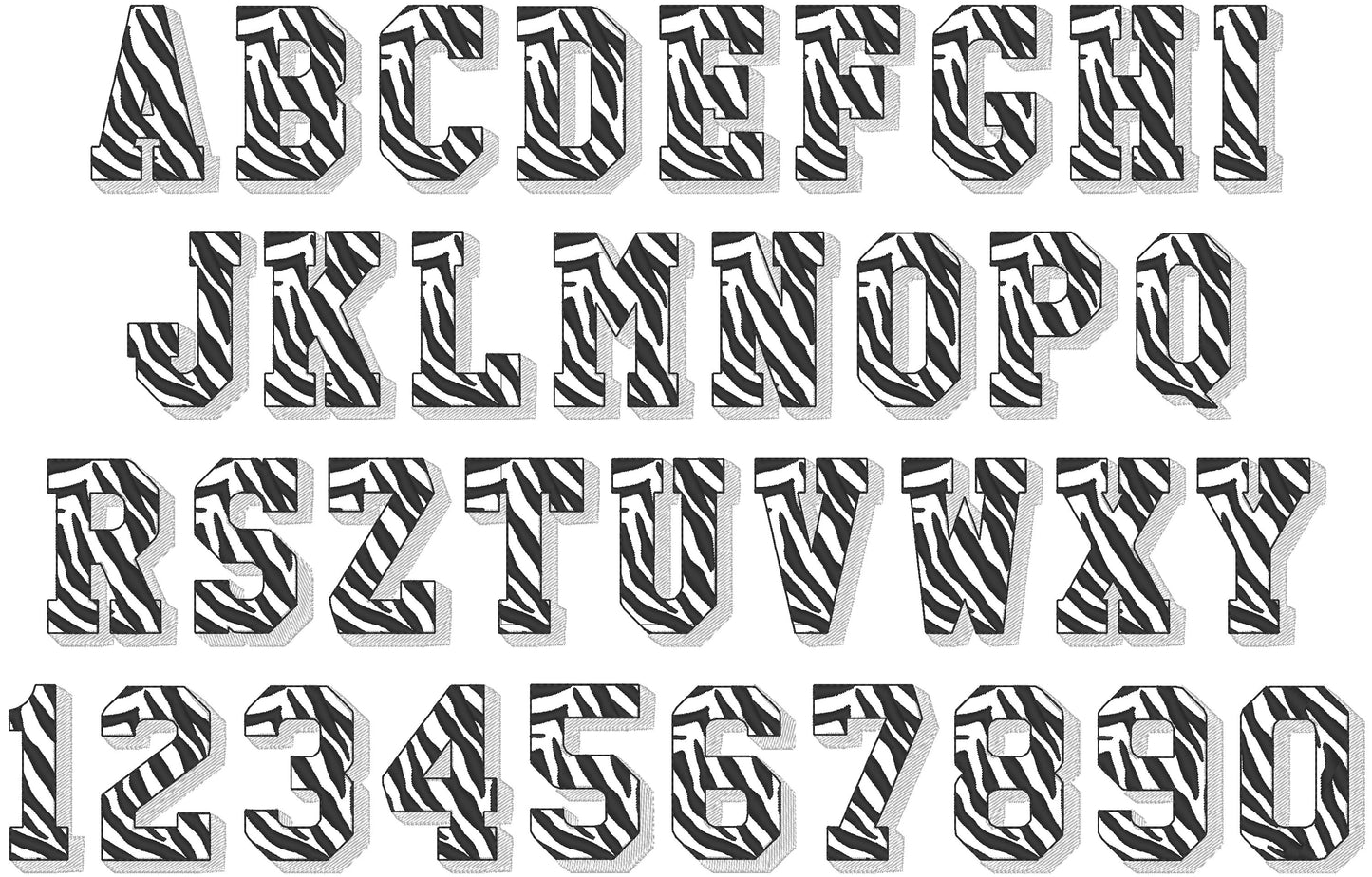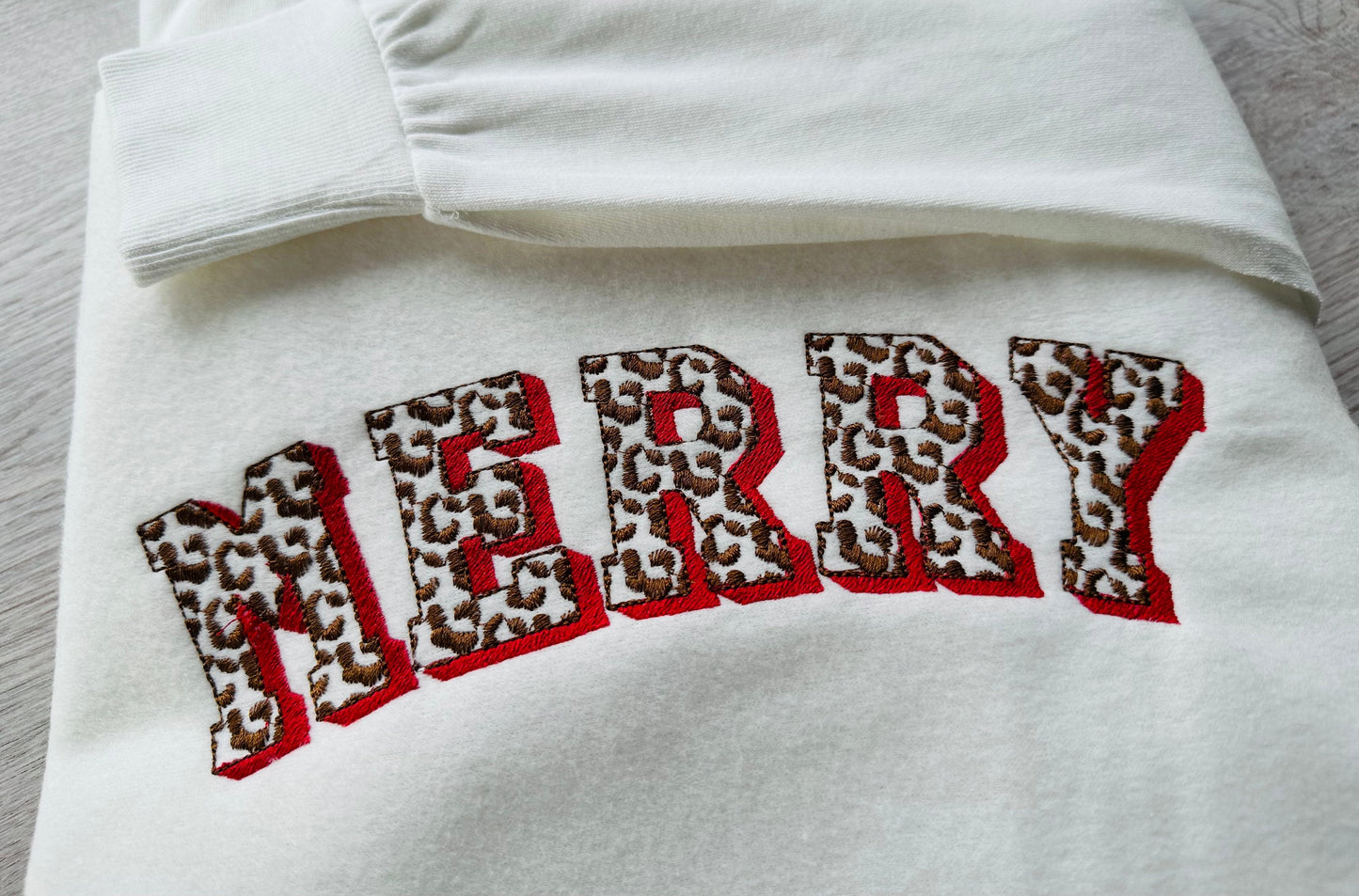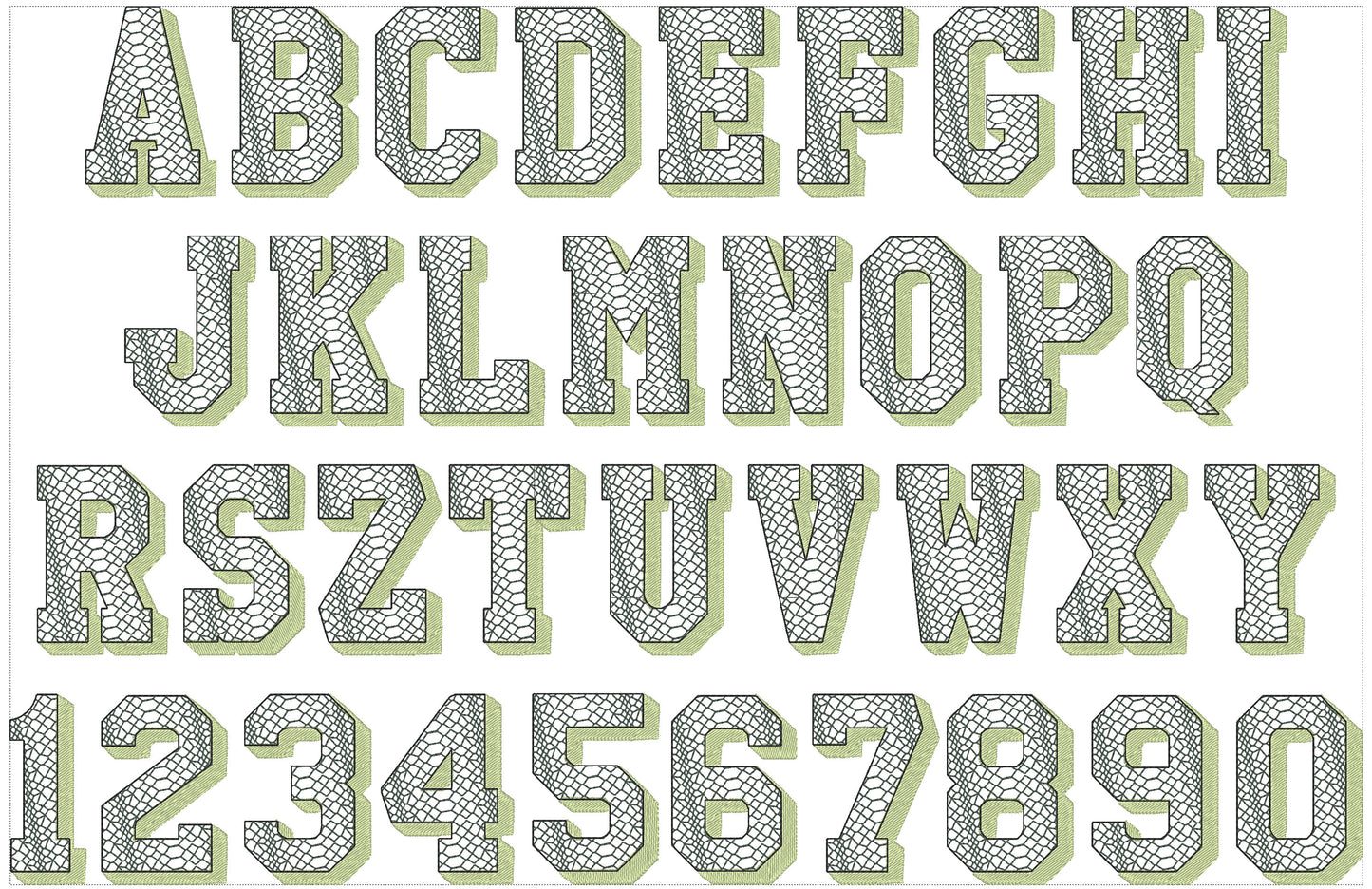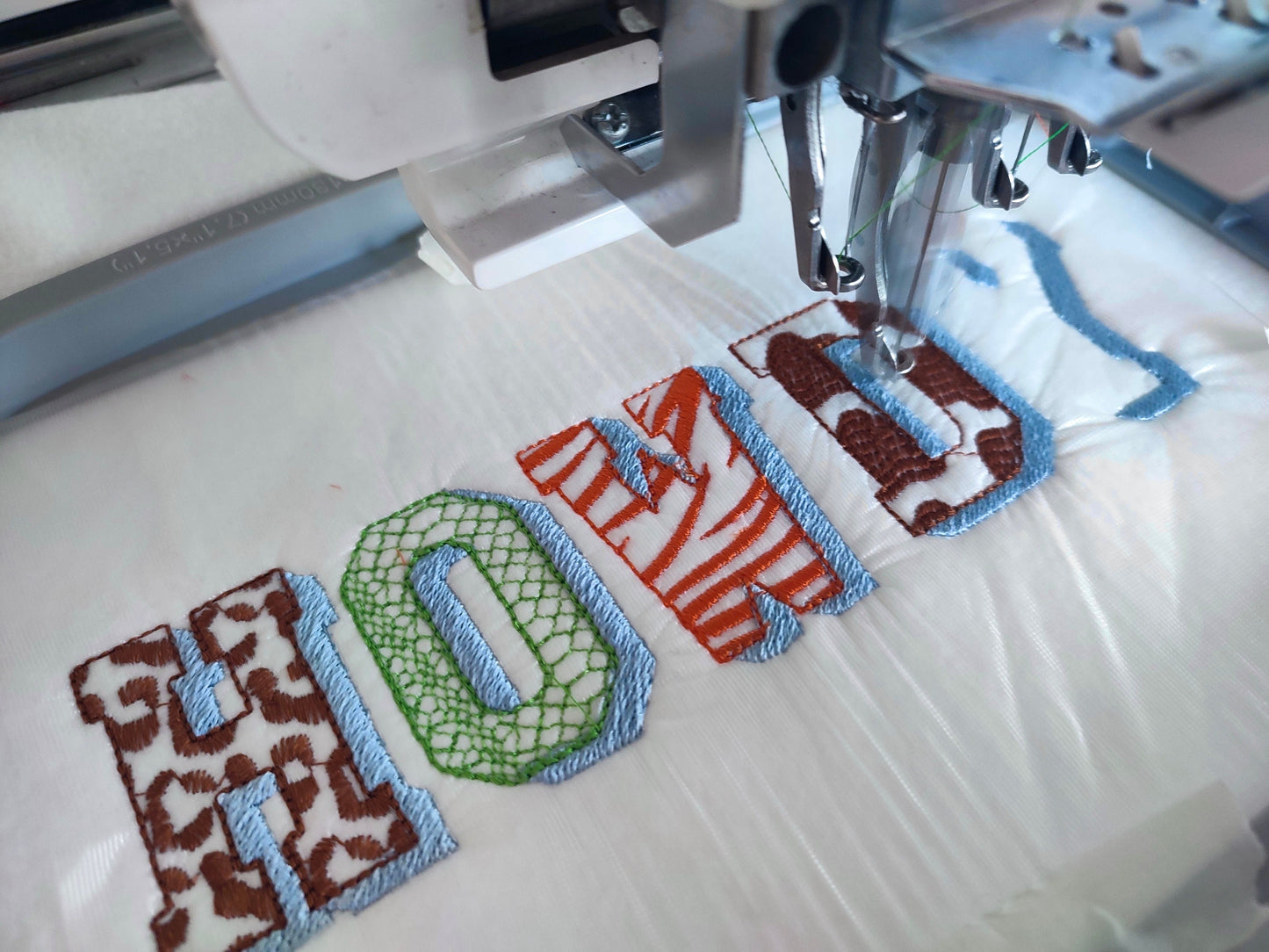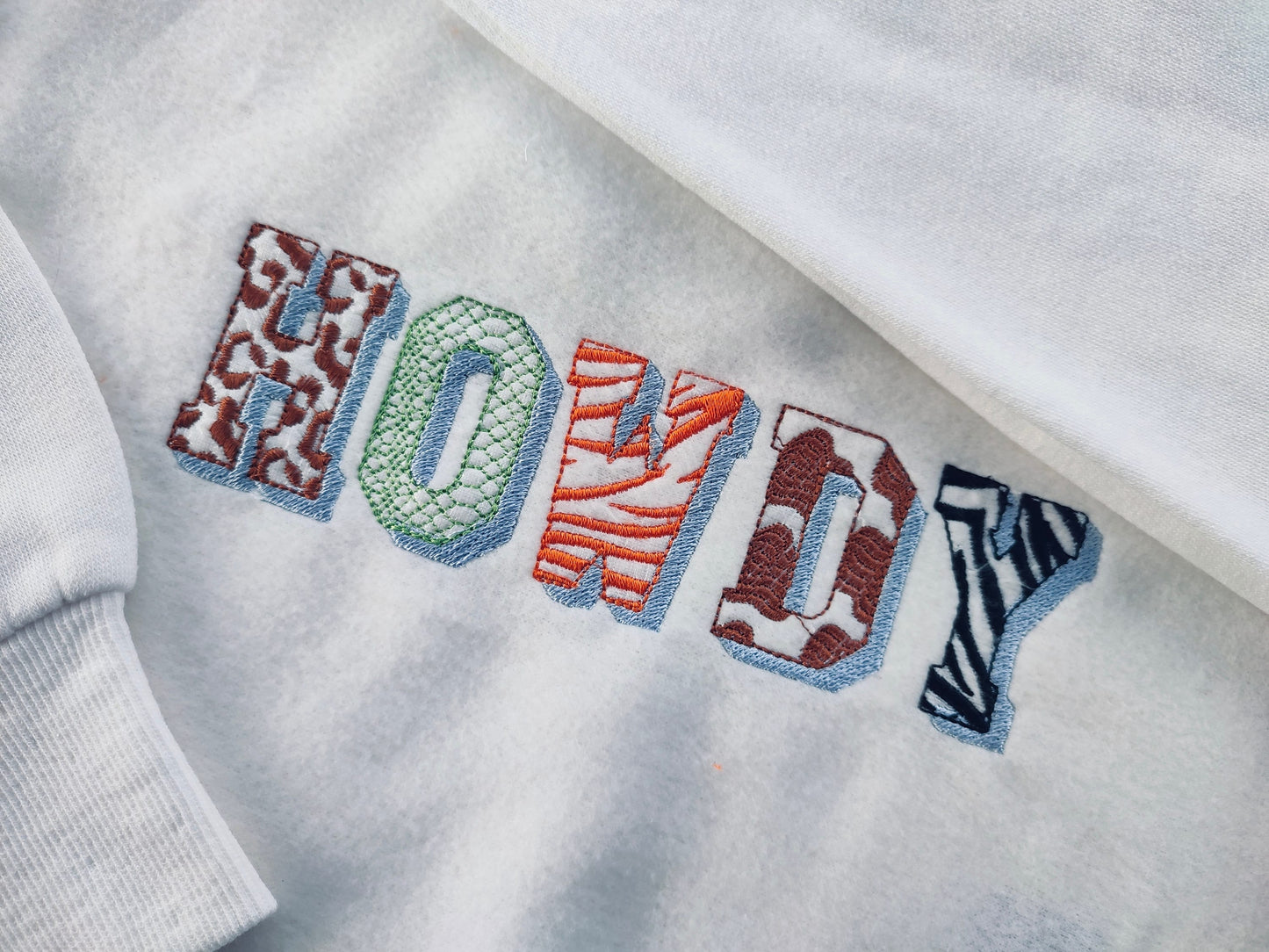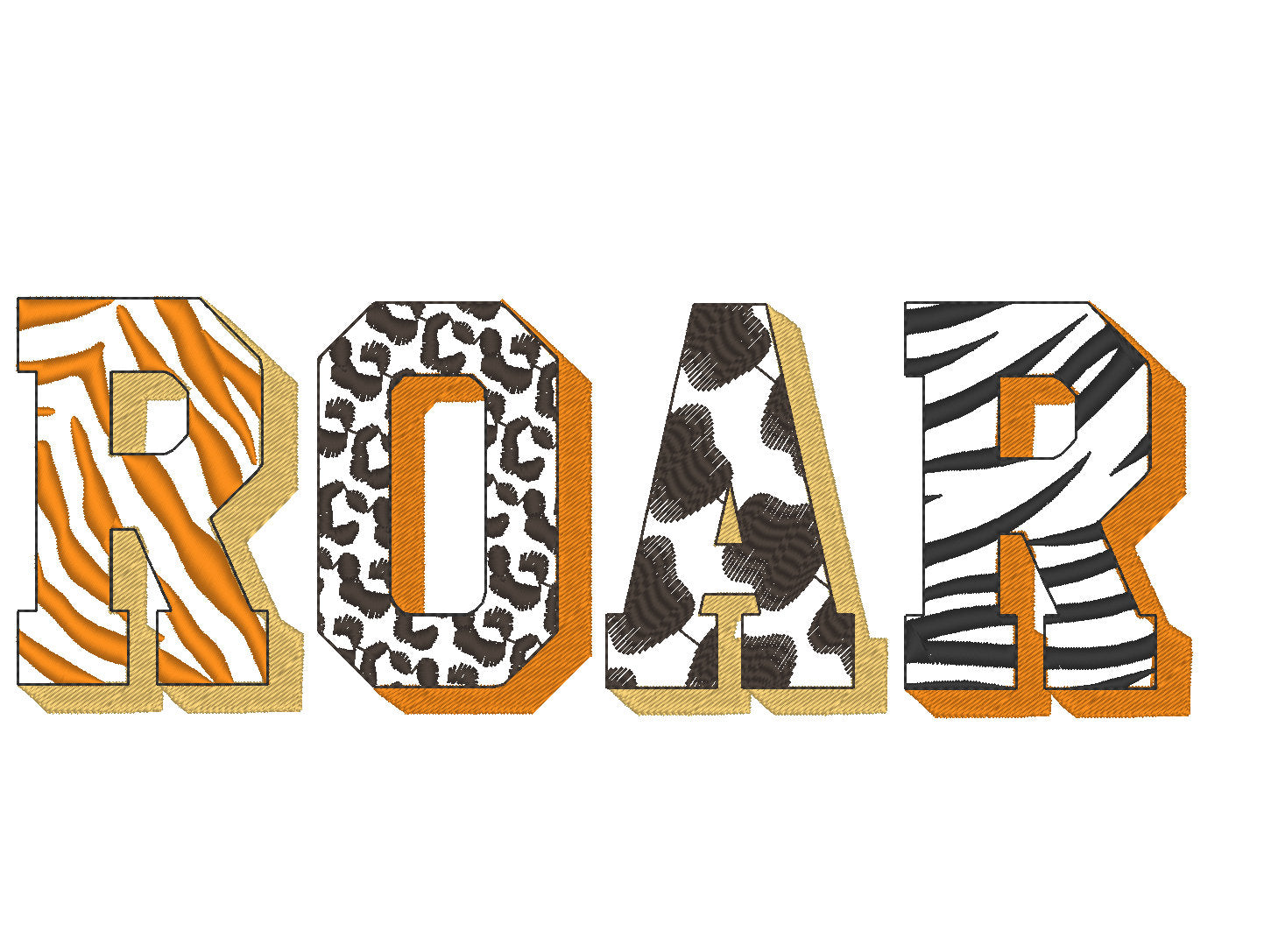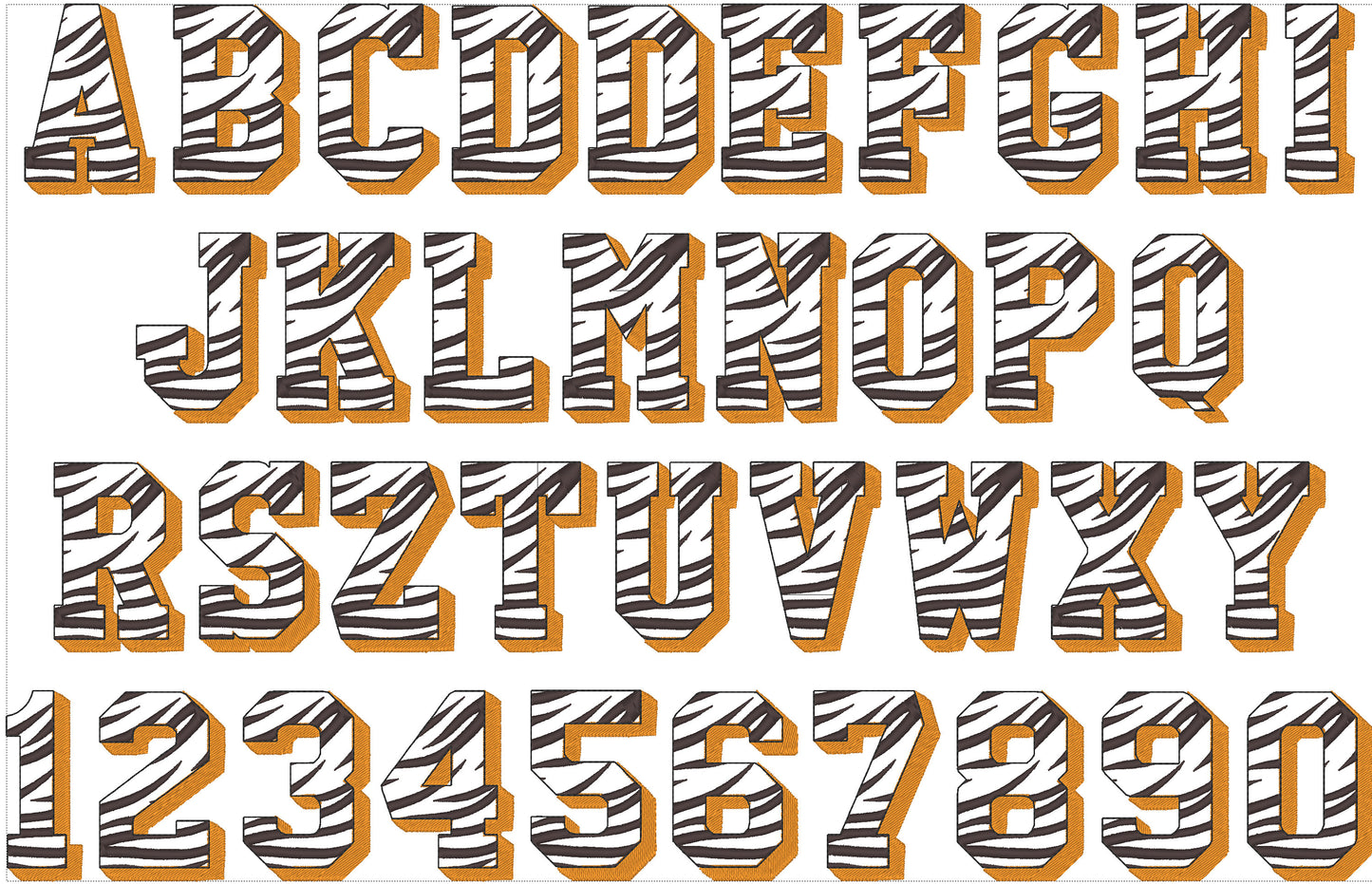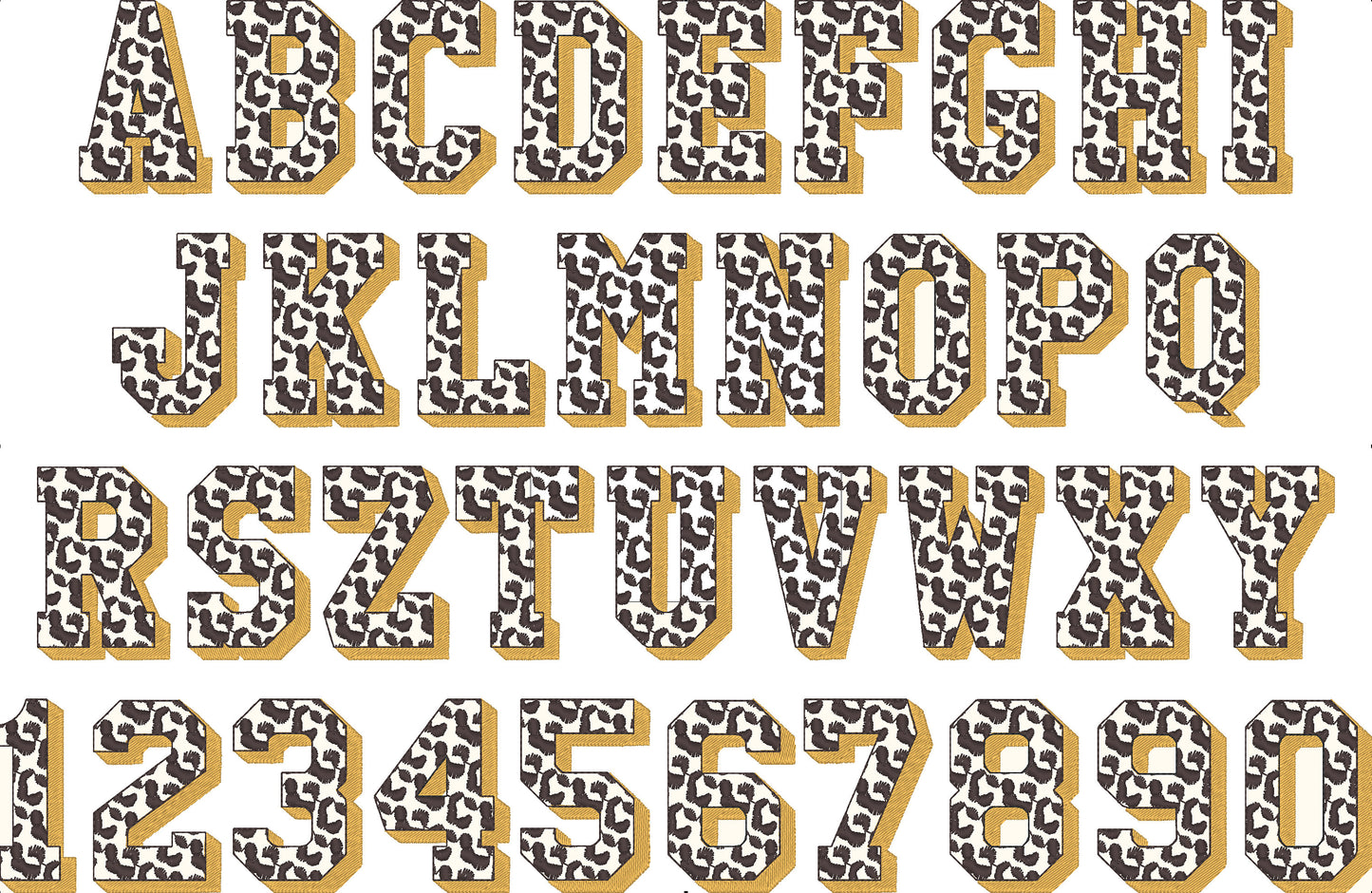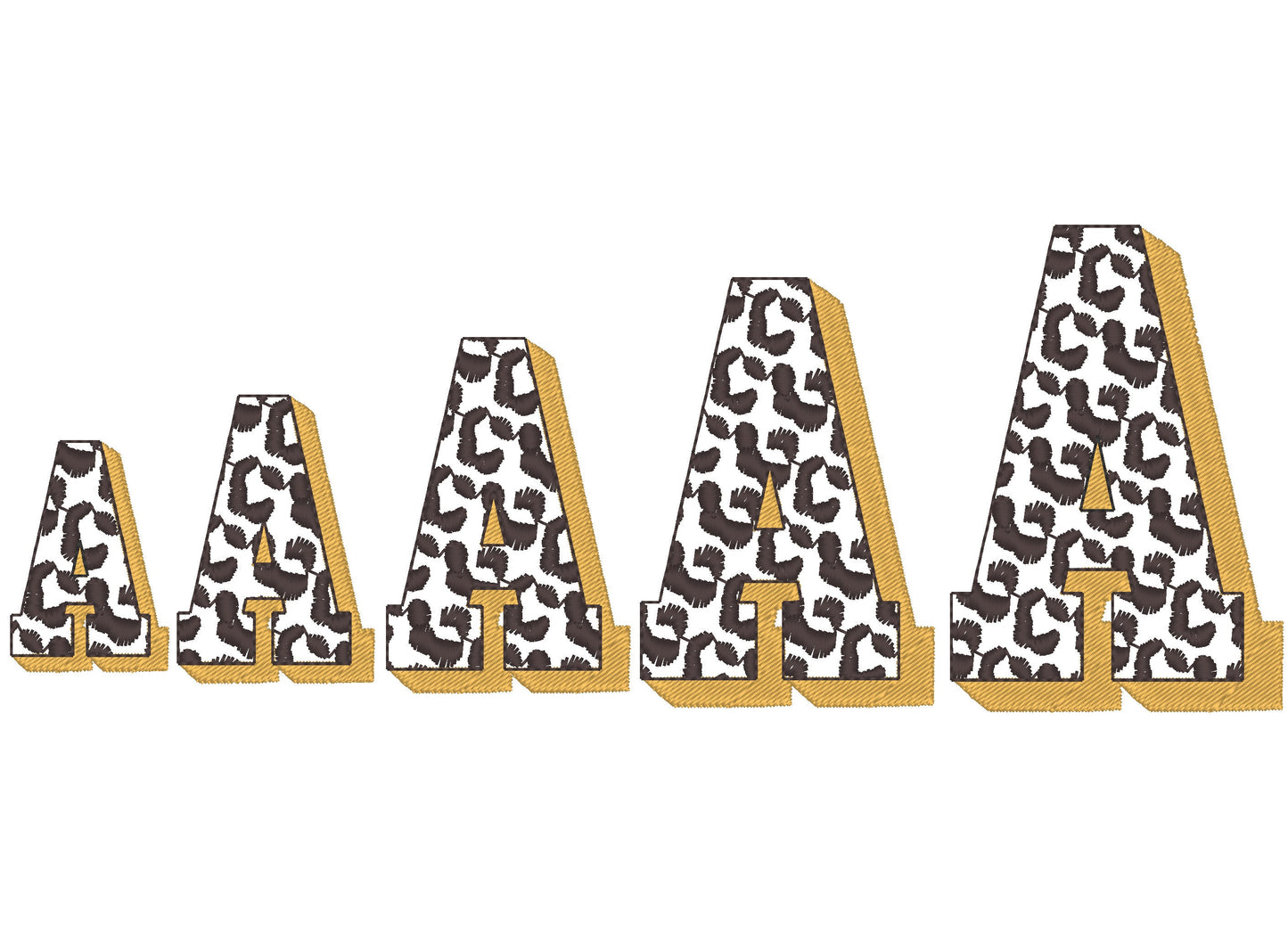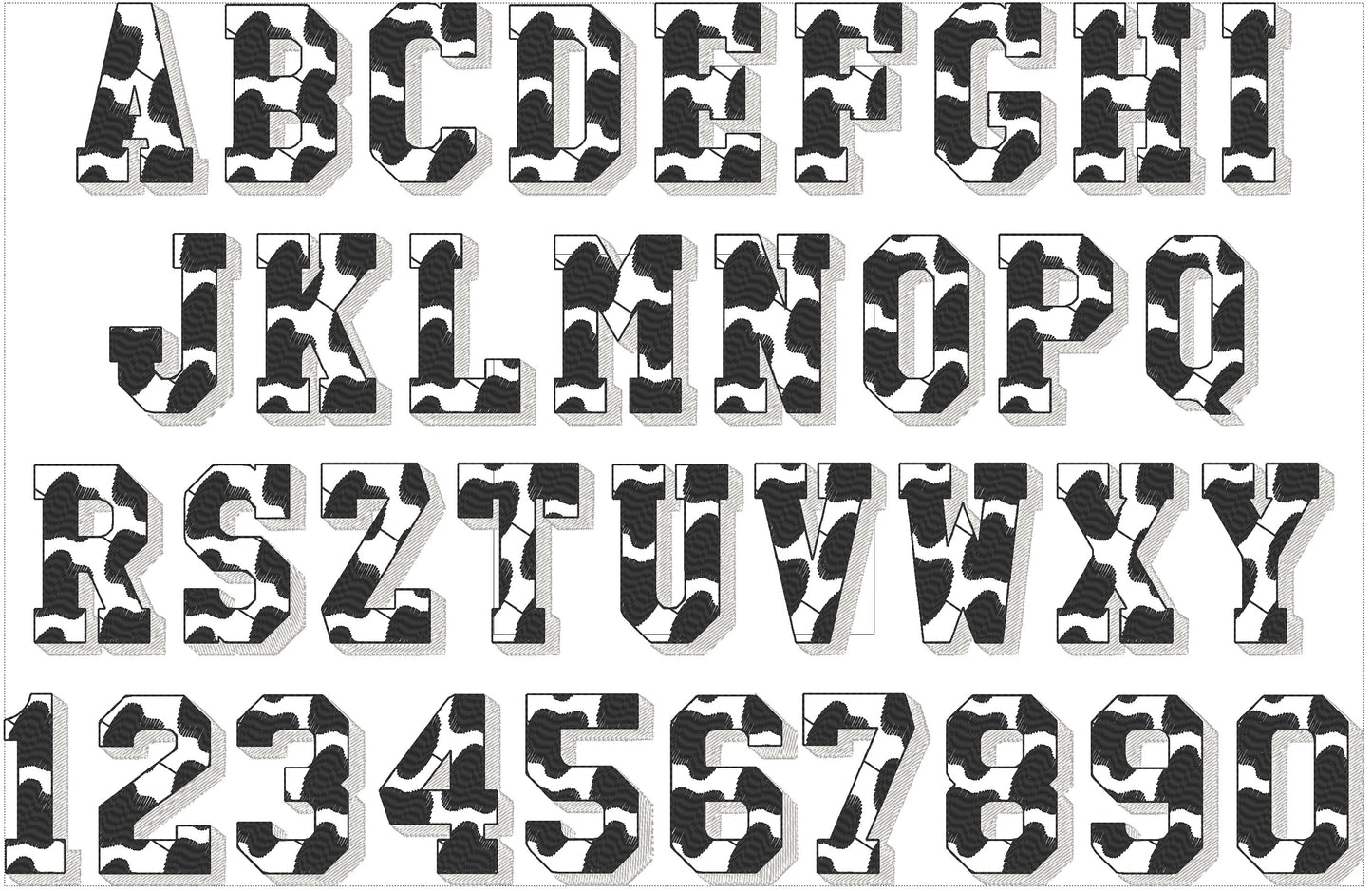
Or click to open the linkFive animal print fonts in one set: cow spots, tiger stripes, leopard spots, zebra and crocodile. Great for kids' names, monograms and fun shirts.
The letters have an open animal print inside, a fill stitch shadow and a light bean stitch outline, so the fabric shows through. Across the set the letters come in 0.8, 1, 1.3, 1.5, 1.6, 2, 2.5, 3 and 3.5 inches. Mix prints, sizes and colors as you like.